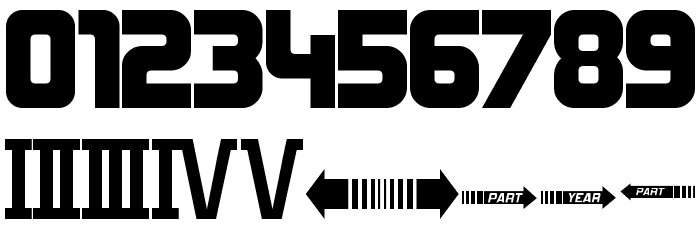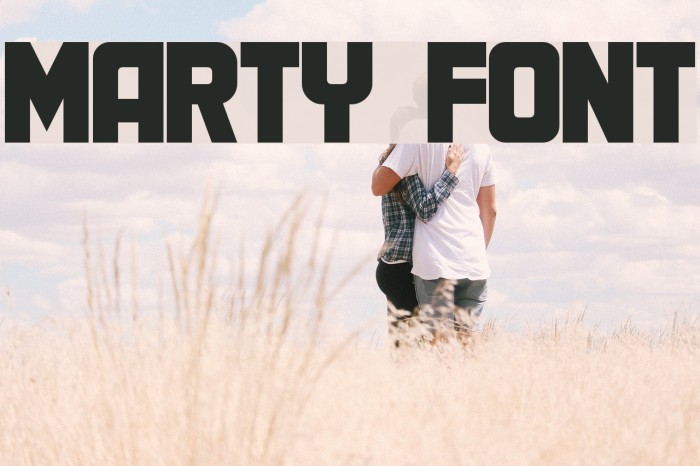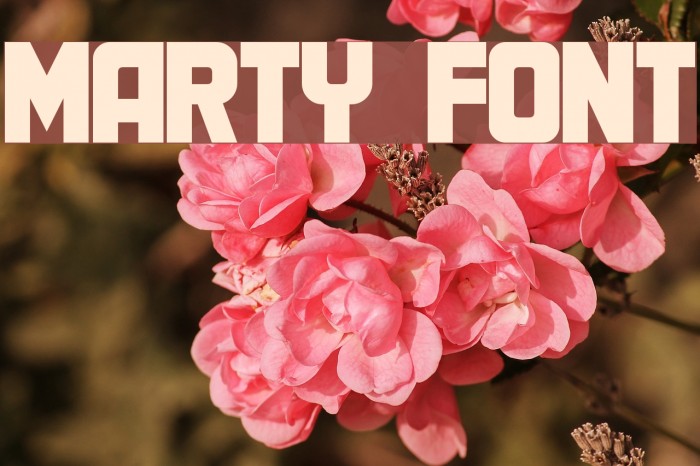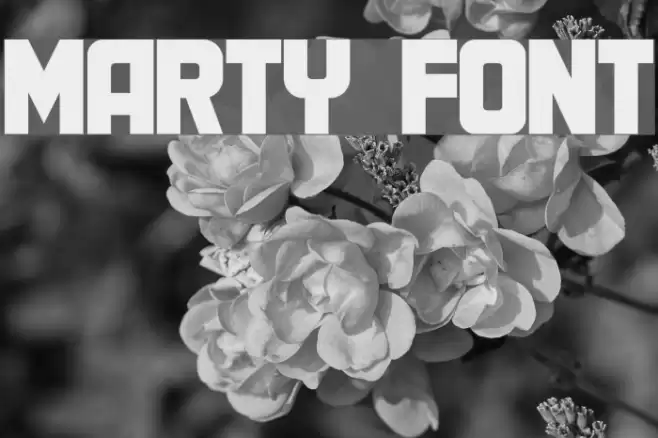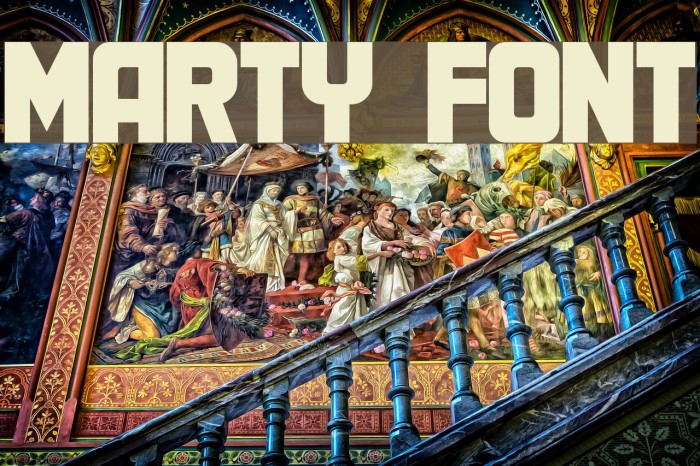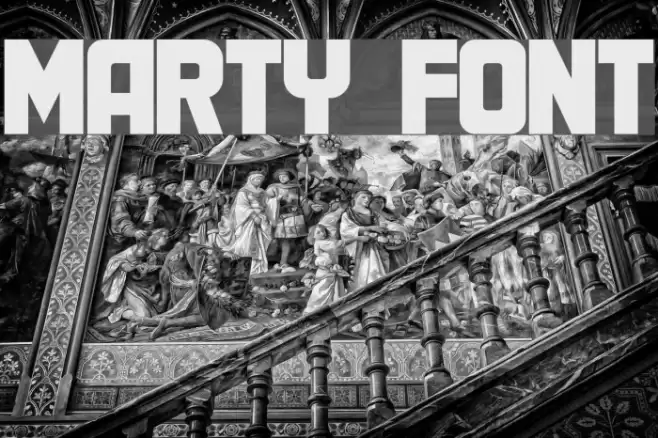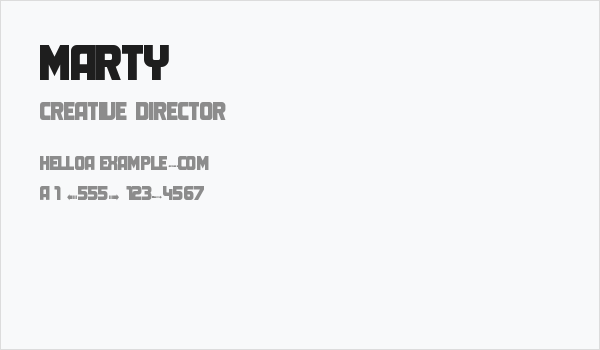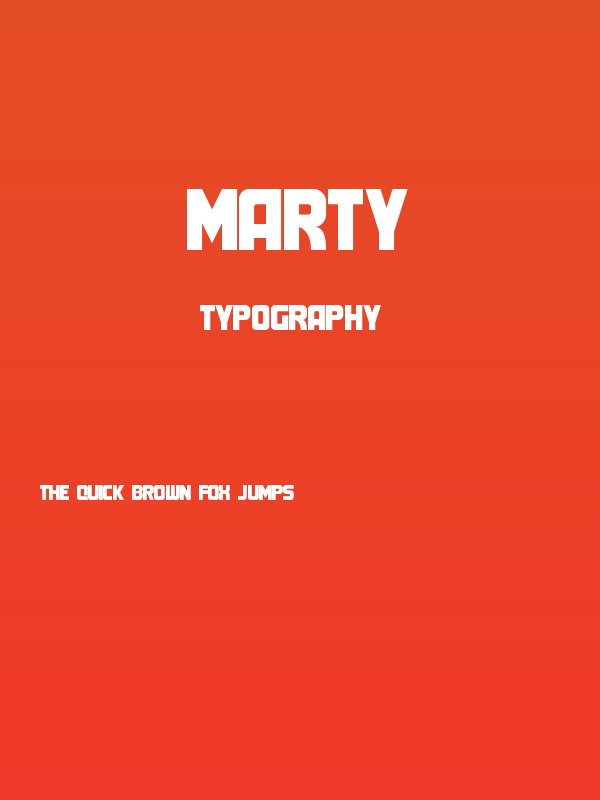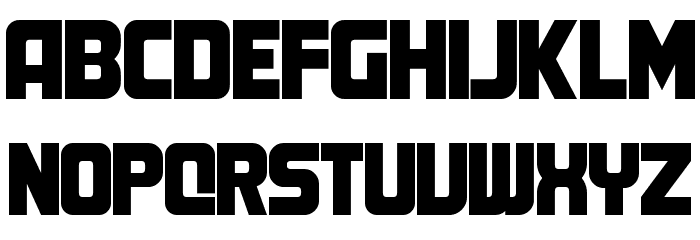
Marty Font
Marty Description
This font features a bold, geometric style with a strong presence. The characters are blocky and wide, with a uniform thickness that gives them a modern and industrial feel. The uppercase and lowercase letters maintain a consistent design, emphasizing straight lines and sharp angles. The numerals are equally bold, matching the overall aesthetic of the alphabet. Special characters, such as arrows and Roman numerals, are included, adding versatility to the font. The design is clean and impactful, making it suitable for attention-grabbing headlines and logos.
| Proposed Projects | Ideal for branding, posters, signage, and any project requiring a strong visual impact. |